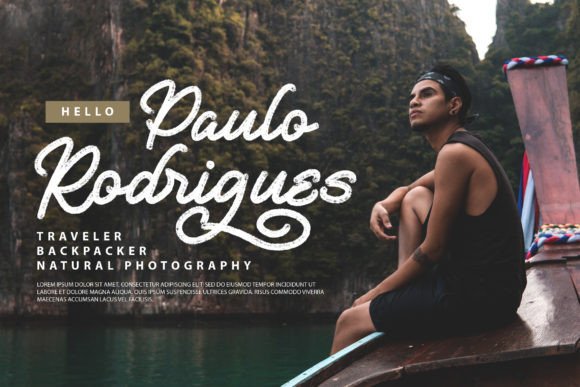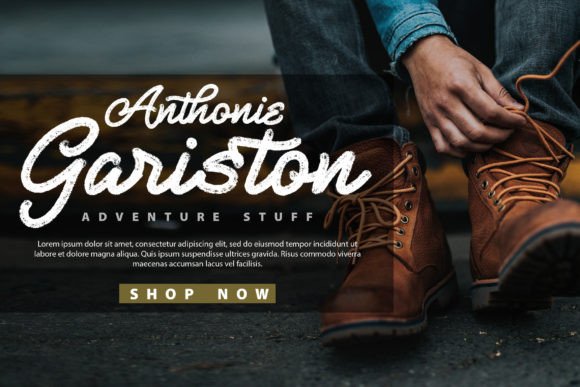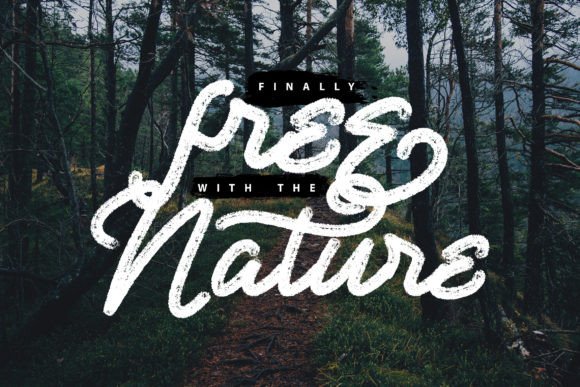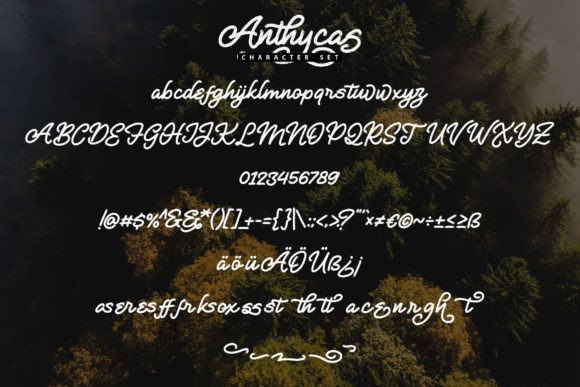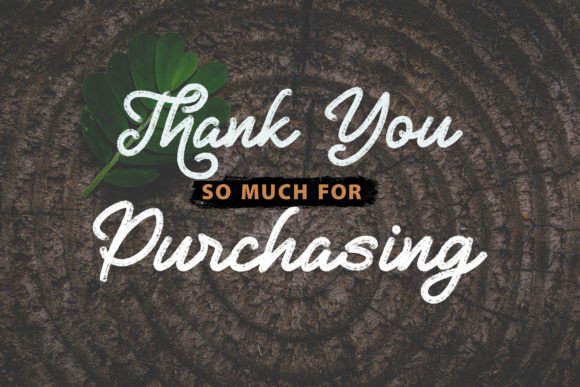
Introducing Anthycas Font: Elevate Your Designs with Elegance
Are you on the hunt for a font that exudes sophistication and modernity? Look no further than Anthycas, a stunning handwritten brush font that is sure to take your designs to the next level. With its beautiful rhythm and flowing lines, Anthycas is the perfect choice for designers and crafters looking to create gorgeous and classy compositions.
The Characteristics of Anthycas Font
Anthycas is a graceful, modern handwritten brush font that boasts a unique and elegant aesthetic. Its beautiful rhythm and harmonious lines make it an excellent choice for a wide range of design projects, from branding and invitations to web graphics and cards. The font’s modern and sophisticated look ensures that your designs will stand out from the crowd and leave a lasting impression.
What Makes Anthycas Font So Versatile?
One of the key benefits of Anthycas is its incredible versatility. This font can be used for a wide range of design projects, including:
- Branding projects: Create a lasting impression with your brand’s identity by using Anthycas for your logos, business cards, and other marketing materials.
- Invitations: Make your invitations stand out with the elegant and sophisticated look of Anthycas.
- Web graphics: Add a touch of class and modernity to your website with Anthycas.
- Cards: Create beautiful and eye-catching cards for any occasion with Anthycas.
Why Choose Anthycas Font?
So, why should you choose Anthycas for your design projects? Here are just a few reasons:
- Elegant and sophisticated: Anthycas boasts a modern and elegant look that is sure to impress.
- Highly versatile: This font can be used for a wide range of design projects, making it a great addition to any designer’s toolkit.
- Beautiful rhythm: The font’s beautiful rhythm and harmonious lines make it a joy to work with.
- Easy to read: Despite its elegant and cursive nature, Anthycas is easy to read and understand.
Tips for Using Anthycas Font Effectively
To get the most out of Anthycas, here are a few tips to keep in mind:
- Use it sparingly: While Anthycas is a beautiful font, it’s best to use it sparingly to avoid overwhelming your design.
- Pair it with other fonts: Experiment with pairing Anthycas with other fonts to create a unique and eye-catching look.
- Adjust the size and color: Play around with different sizes and colors to find the perfect combination for your design.
Key Features of Anthycas Font
| Font Style | Handwritten Brush Font |
| Font Type | Modern, Elegant, Sophisticated |
| Use Cases | Branding, Invitations, Web Graphics, Cards, and more |